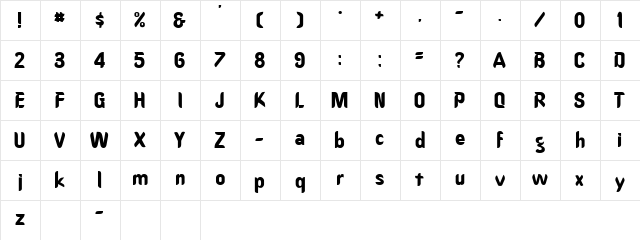
OregonDry-Plain Regular
Design Context for OregonDry-Plain Typeface
OregonDry-Plain offers clean, dependable letterforms without strong stylistic allegiance, making it a practical choice for designers who need flexibility.